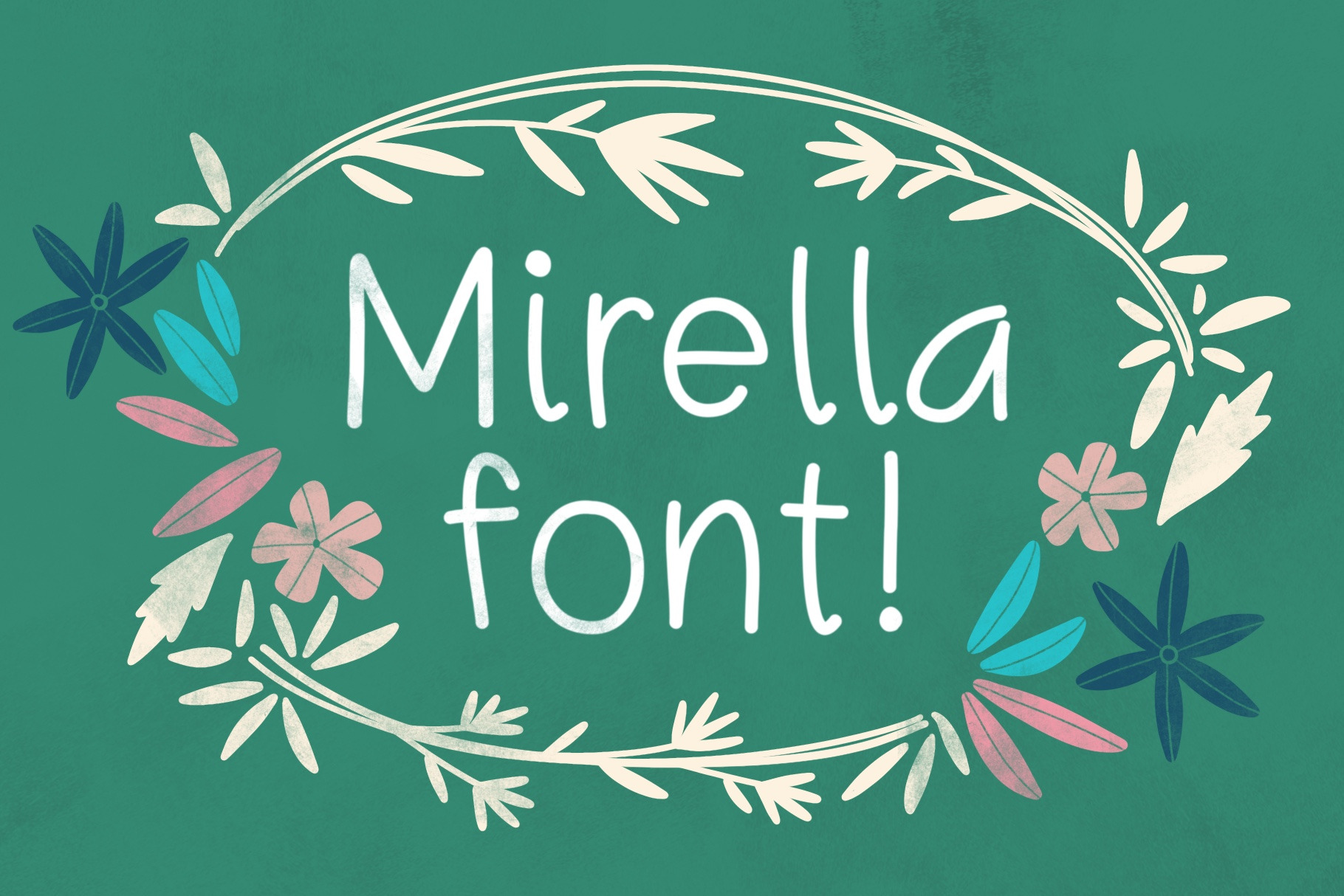
Mirella font
Mirella font is ideal to use along with graphics in greeting cards, with illustrations or as note taking font. You can incorporate in your artwork if you want a simple and fresh font.